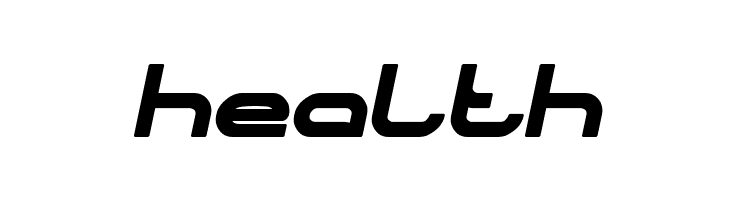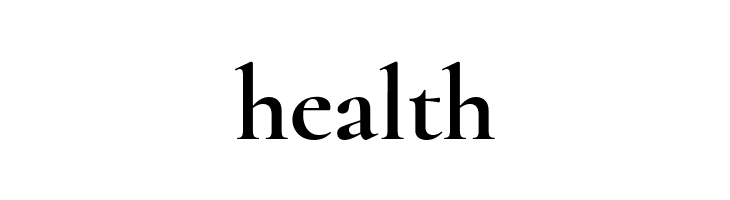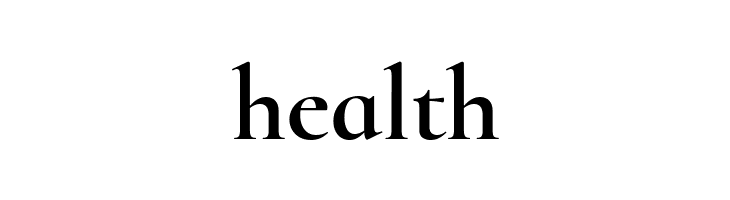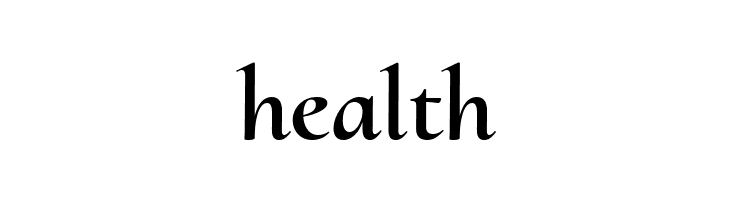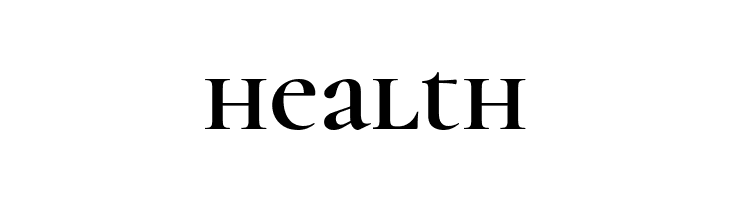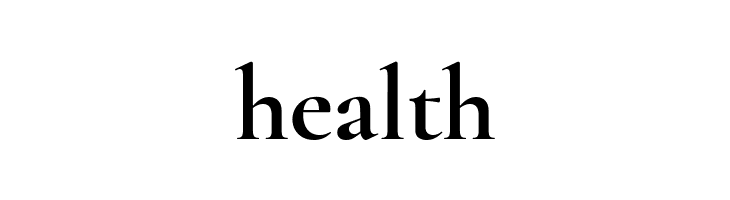
A bold, italicized font with a modern, dynamic style.
A classic serif font with high contrast and elegant strokes.
A bold, italic serif font with high contrast and elegant styling.
A classic serif font with elegant proportions and moderate contrast.
A bold, italic serif font with classic elegance and dynamic style.
A classic serif font with high contrast and elegant serifs.
A bold, italic serif font with classic elegance and strong visibility.
A classic serif font with elegant strokes and refined proportions.
A high-contrast serif font with a unicase design, blending classic elegance with modern style.
A bold, elegant serif font with high contrast and classic styling.